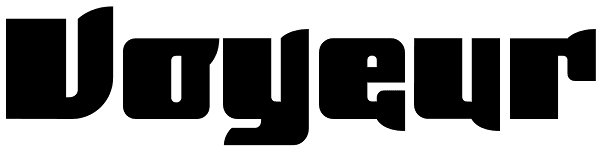
Voyeur
Since you like to look, Angel Koziupa and Alejandro Paul bring you Voyeur, an entirely different direction from their usual collaborations. This typeface attracts two opposite design theories by mixing bold and blocky modernism with delicate...